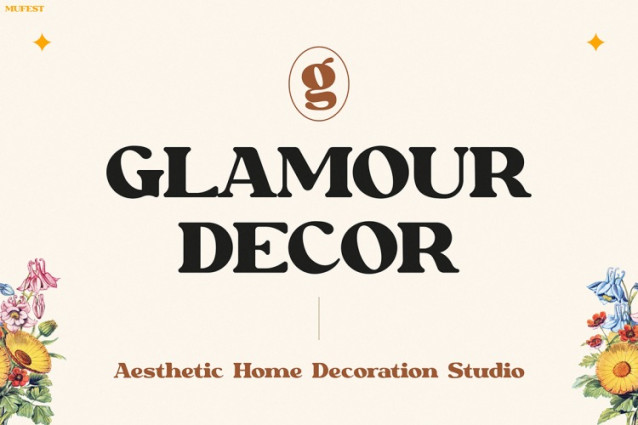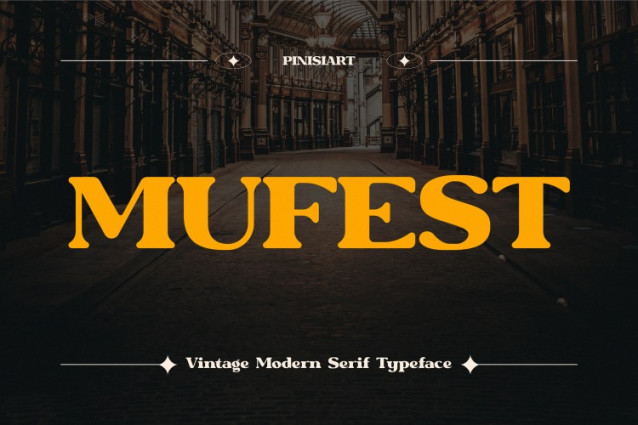
Mufest Font
Mufest Font is a unique typeface that combines vintage elegance with modern creativity. Its bold serifs and refined curves instantly draw attention, while its balanced letterforms ensure easy readability. As a result, this font delivers both charm and function, making it a powerful choice for diverse design projects. Moreover, the mix of Victorian beauty and contemporary precision gives every word a stylish personality. With Retro Font MUFEST, your text will never look ordinary, because it was designed to bring character and impact to every layout.